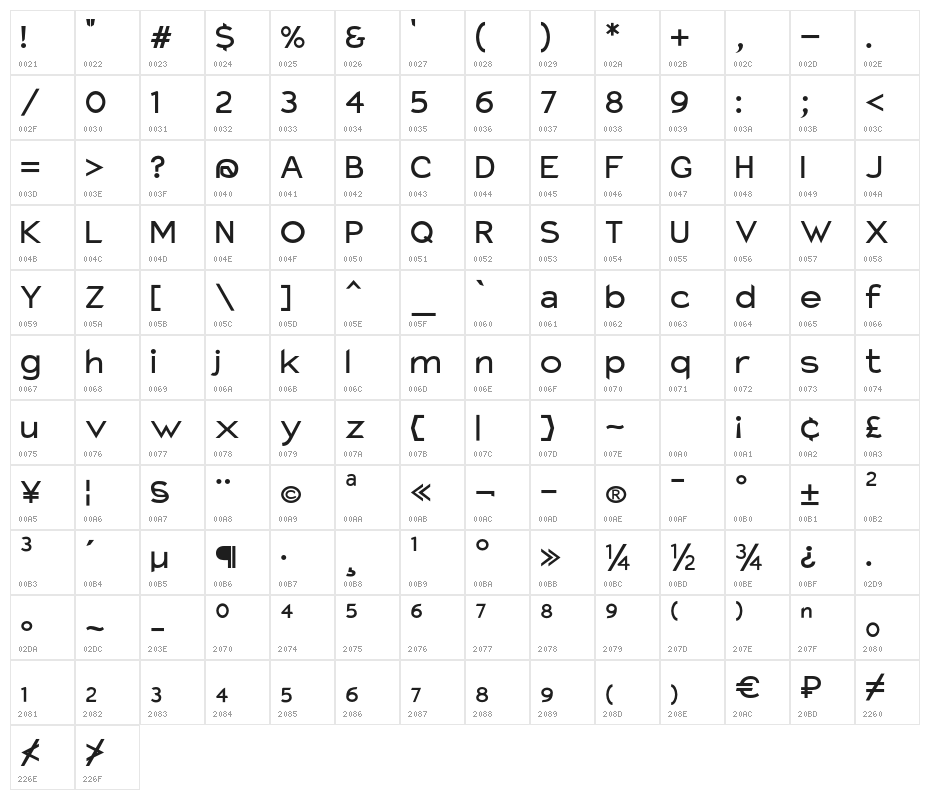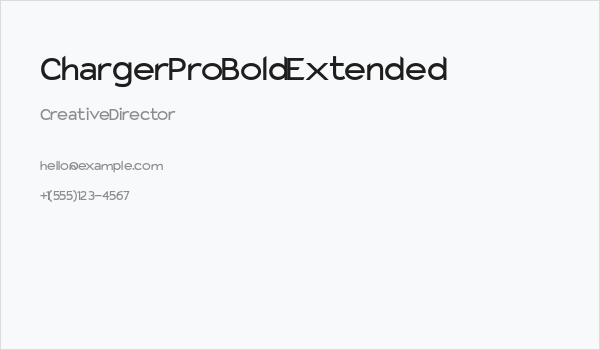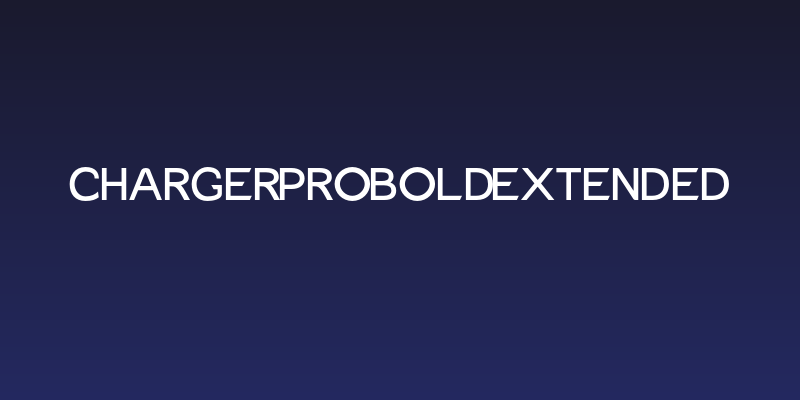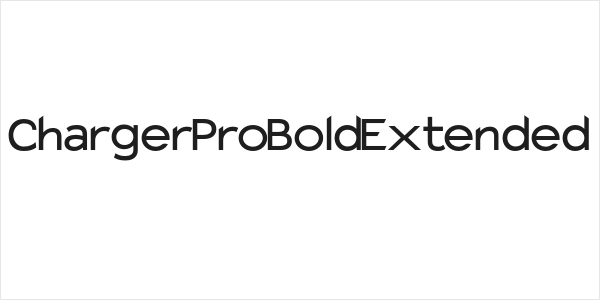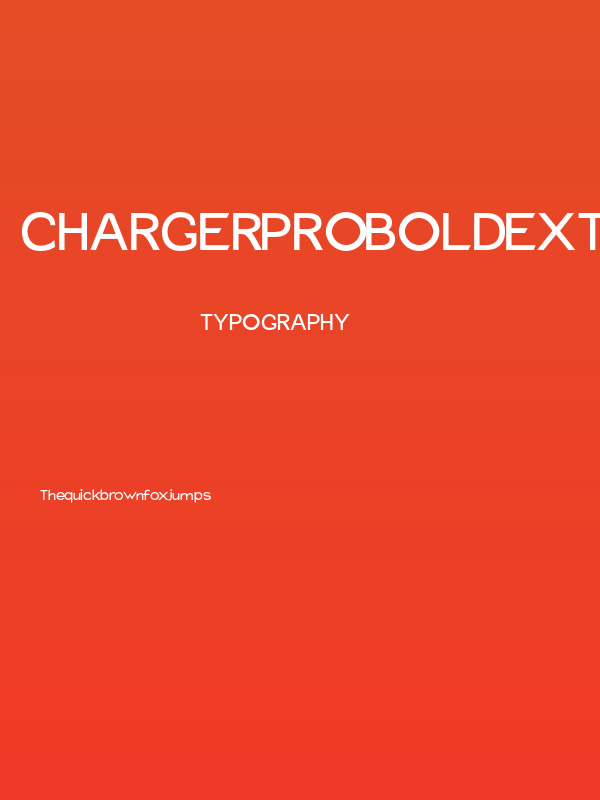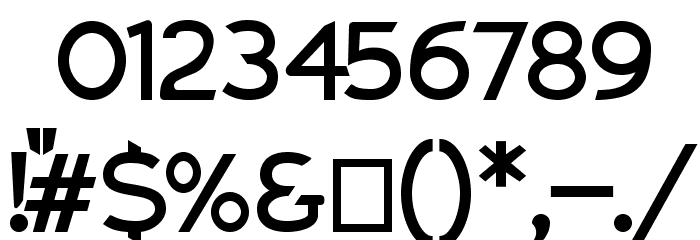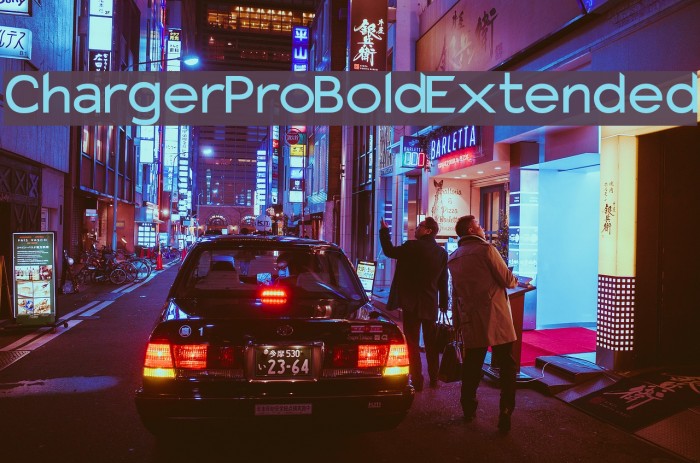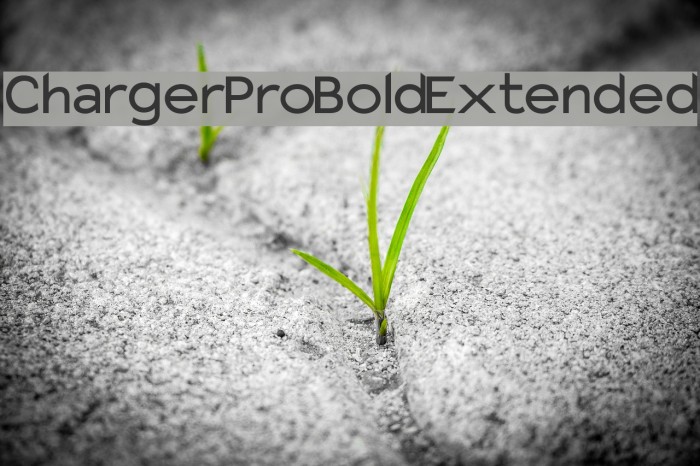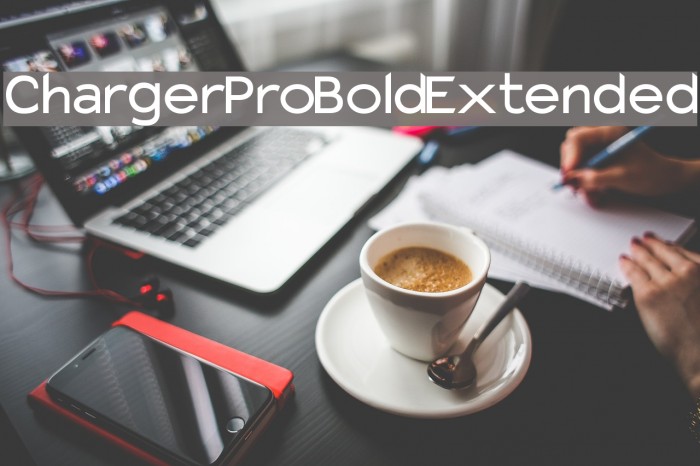
Charger Pro Bold Extended Font
Charger Pro Bold Extended Description
This font features a bold and extended style with clean, geometric lines. The uppercase letters are uniform in height, creating a strong and cohesive appearance. The lowercase letters maintain a consistent roundness, contributing to the font's modern aesthetic. The numerals are clear and legible, with a similar weight and style to the alphabetic characters. Special characters are well-defined, ensuring versatility in various design applications. The overall design is sleek and contemporary, making it suitable for a wide range of uses.
| Proposed Projects | Ideal for branding, advertising, headlines, and digital media projects. |